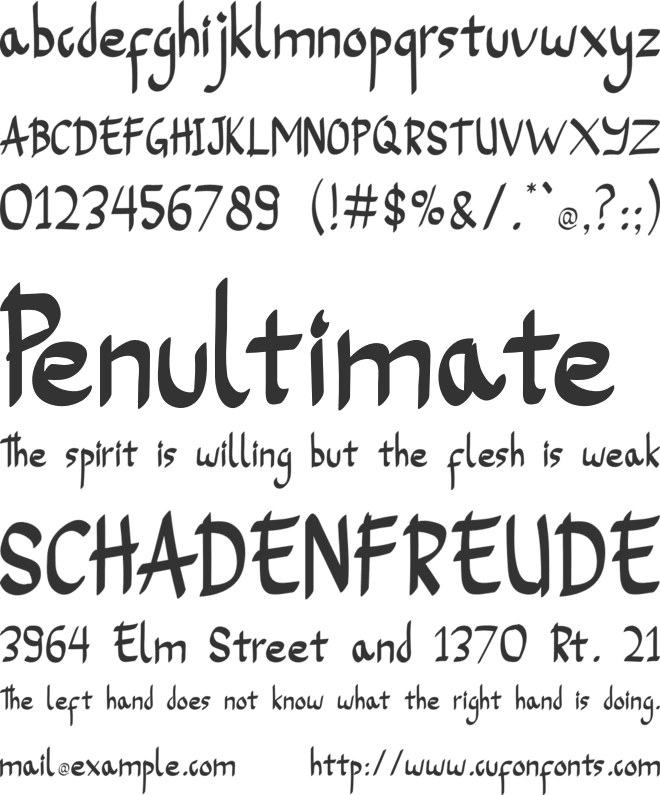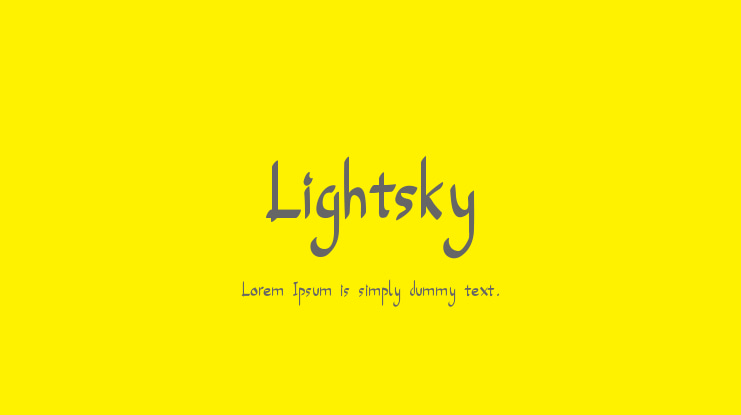
Lightsky Font
Herya Wildan
Introducing Lightsky is a modern handwritten font. It was inspired by calligraphy pen and it is perfect for adding a natural touch to your designs. It is perfect for logo designs, branding, posters, cover / book titles, art quotes, clothing designs, product packaging, labels, special events or anything that requires a handwritten feel.